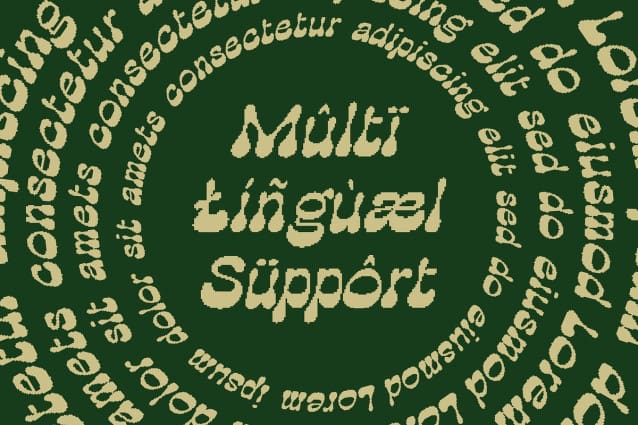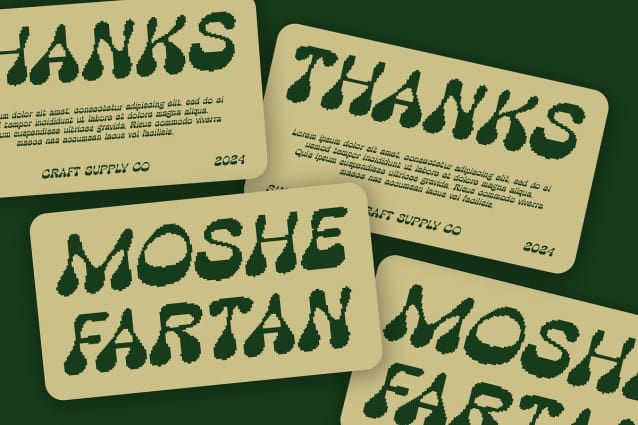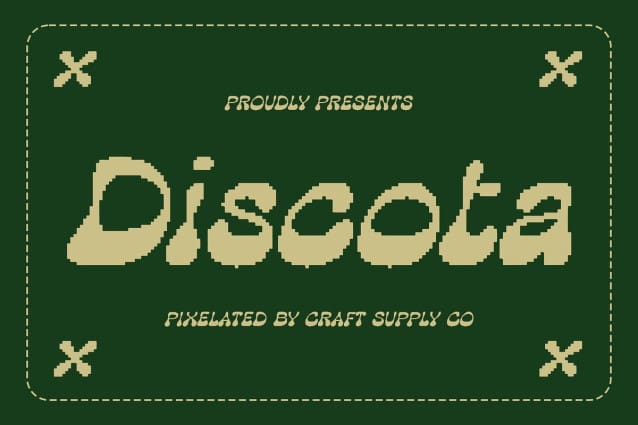
Discota Pixel Font
Discota Pixel Font is a display font that combines bubble and psychedelic shapes, resulting in a soft and curvy design that exudes a funky and cute vibe. Its round, rounded letters contribute to a playful and approachable look, making it perfect for designs that want to highlight creativity and whimsy.
Retro Pixel Effect for Nostalgic Appeal The retro pixel effect on Discota Pixel introduces a nostalgic touch, reminiscent of early computer graphics and video games. This pixelated texture adds a unique dimension to the font, giving it a charming, retro-futuristic quality that stands out in various creative contexts.
Cheerful and Unique Look With its blend of bubble shapes, psychedelic influences, and pixelated detail, Discota Pixel offers a distinctive visual style that adds cheerfulness and character to any project. Ideal for music event posters, children’s products, and playful graphic designs, this font brings a burst of creativity and fun to your designs, ensuring they capture attention and spark joy.